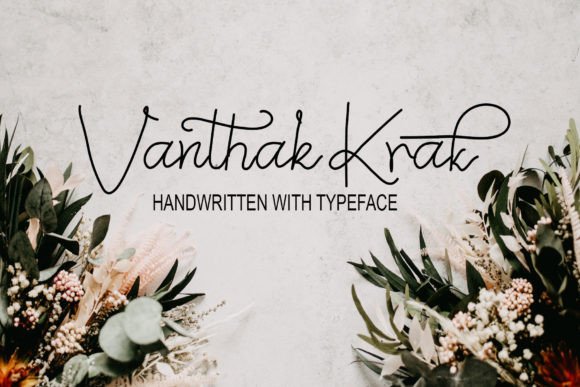
Introducing Vanthak Krak, a whimsical and playful handwritten font that captures the essence of childhood wonder and creativity. This unique script, designed by Canden Meutuah, is a perfect choice for adding a touch of fun and authenticity to any project.
Immerse yourself in the world of Vanthak Krak, where each character exudes a sense of playfulness and imagination. Its charmingly irregular lines and cheerful curves bring life to any design, making it a standout choice for children's activities, school projects, and creative endeavors.
With Vanthak Krak, you can unlock a world of possibilities. Let your imagination soar as you create enchanting invitations, eye-catching posters, or personalized greeting cards. Its versatile nature makes it perfect for a wide range of projects, from whimsical logos to heartwarming social media posts.
Beyond its functionality, Vanthak Krak evokes an emotional connection with its audience. Its childlike charm sparks a sense of nostalgia, reminding us of the carefree days of youth. It captures the essence of innocence and fun, making it a perfect choice for projects that aim to evoke a sense of wonder and joy.